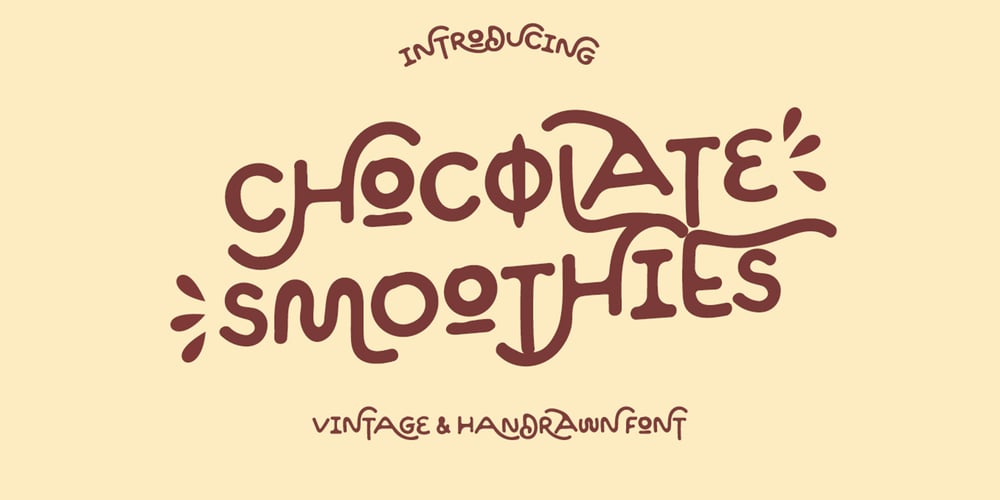
Chocolate Smoothies
Chocolate Smoothies font
Chocolate Smoothies Font Family was designed by Muhammad Afif Ersya and published by Mevstory Studio. Chocolate Smoothies contains 1 styles and family package options. Chocolate Smoothies is an experimental display font, which was hand-drawn and then digitized. This playful and stylish font draws inspiration from Lettercorner vintage & handrawn Font. If you have any queries, questions or issues please don’t hesitate to contact us directly. Download within a few clicks and use across a huge range of programs including Silhouette, Cricut, SCAL, Photoshop, InDesign, Illustrator, and Microsoft Word as well as many more.